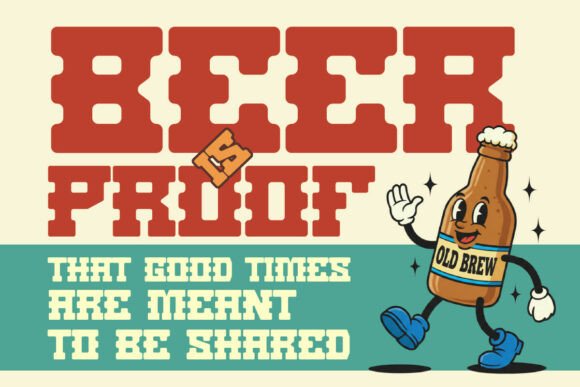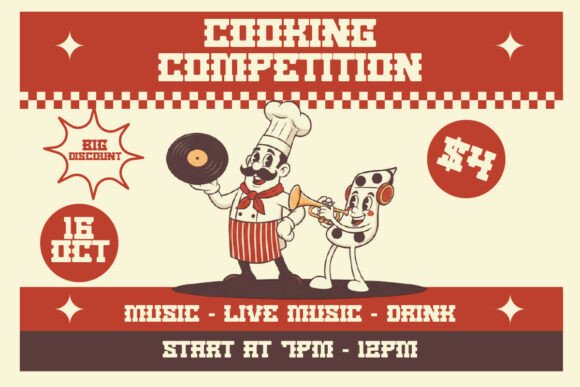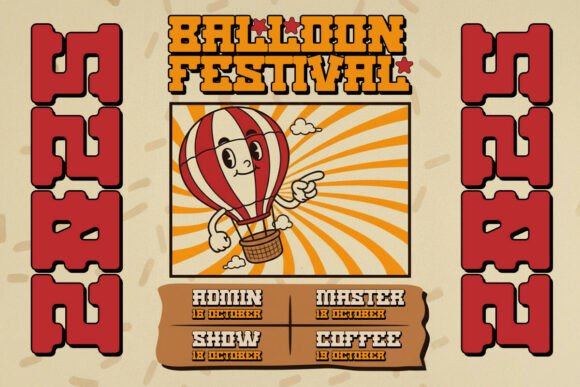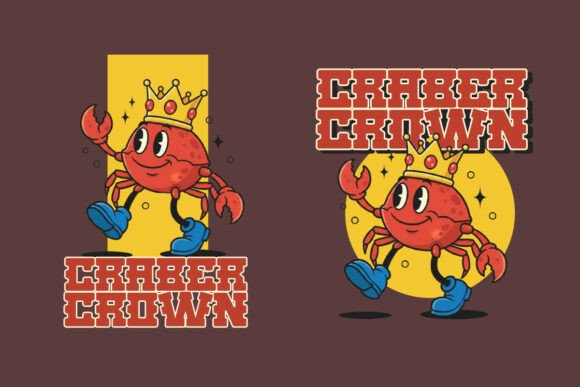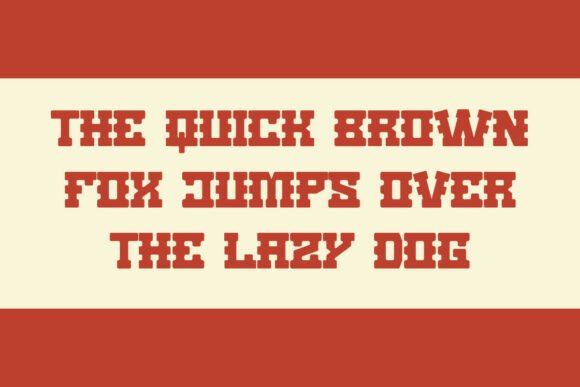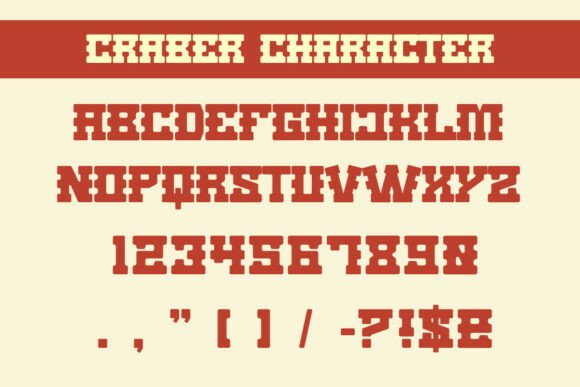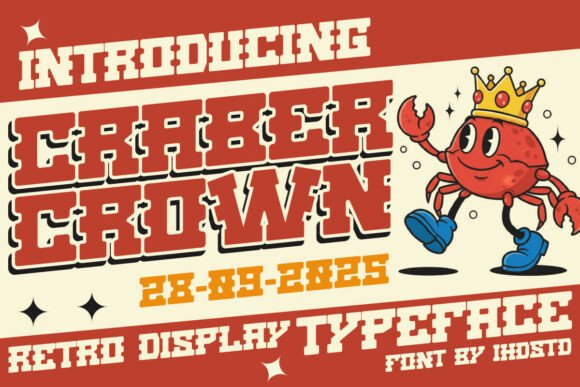
Craber Crown Font: The Ultimate Retro Display Typeface for Creative Designs
Are you looking for a font that can add a touch of nostalgia and playfulness to your designs? Look no further than Craber Crown, a fun and funky retro display font that’s perfect for bringing the energy of vintage cartoons and comic books to your projects. With its chunky letterforms and bold outlines, Craber Crown is ideal for a wide range of design applications, from children’s content and retro branding to food packaging and quirky logo designs.
Inspired by Nostalgic Vibes
Craber Crown is a font that’s deeply rooted in nostalgia. Its design is inspired by the classic cartoons and comic books of the past, with bold lines, playful curves, and a dash of whimsy. The font’s chunky letterforms are reminiscent of old-school signage and poster art, while its bold outlines add a touch of sophistication and elegance. Whether you’re designing for print or digital media, Craber Crown is sure to bring a smile to your audience’s faces.
Perfect for Creative Designs
Craber Crown is a versatile font that’s perfect for a wide range of design applications. Here are just a few ideas to get you started:
• Children’s Content: Craber Crown is a natural fit for kids’ books, educational materials, and other content designed for young audiences. Its playful, energetic vibe is sure to capture kids’ attention and make learning fun.
• Retro Branding: If you’re looking to create a brand that evokes the nostalgia of the past, Craber Crown is the perfect font for you. Use it to create bold, eye-catching logos and marketing materials that will transport your customers back in time.
• Food Packaging: Craber Crown is also a great choice for food packaging design. Its bold, playful vibe is perfect for packaging that needs to stand out on store shelves, from candy and snacks to baked goods and beverages.
• Quirky Logo Designs: Finally, Craber Crown is a great choice for designers who want to create unique, eye-catching logos that will set their clients apart from the competition. Use it to create bold, memorable logos that will make a lasting impression.
What Makes Craber Crown Special?
So what sets Craber Crown apart from other fonts? Here are just a few things that make it special:
• Playful, Chunky Letterforms: Craber Crown’s chunky letterforms are playful, fun, and full of personality. They’re perfect for creating bold, eye-catching headlines and titles that will grab your audience’s attention.
• Bold Outlines: The font’s bold outlines add a touch of sophistication and elegance to its playful letterforms. This makes Craber Crown a great choice for designs that need to be both fun and professional.
• Nostalgic Vibe: Craber Crown’s nostalgic vibe is unmatched. Its design is inspired by the classic cartoons and comic books of the past, making it a great choice for designers who want to evoke a sense of nostalgia in their work.
Tips for Using Craber Crown
Here are a few tips for getting the most out of Craber Crown:
• Use it Boldly: Craber Crown is a bold font, so don’t be afraid to use it boldly. Experiment with large font sizes and bold colors to create eye-catching headlines and titles.
• Mix and Match: Craber Crown is a versatile font that can be paired with a wide range of other fonts. Experiment with different font combinations to create unique, eye-catching designs.
• Have Fun: Most importantly, have fun with Craber Crown! Its playful, energetic vibe is perfect for designers who want to add a touch of whimsy to their work.
Author IHD.STD
In conclusion, Craber Crown is a fun and funky retro display font that’s perfect for designers who want to add a touch of nostalgia and playfulness to their work. With its chunky letterforms, bold outlines, and nostalgic vibe, Craber Crown is ideal for a wide range of design applications, from children’s content and retro branding to food packaging and quirky logo designs. So why wait? Download Craber Crown today and start creating bold, eye-catching designs that will make your audience smile!